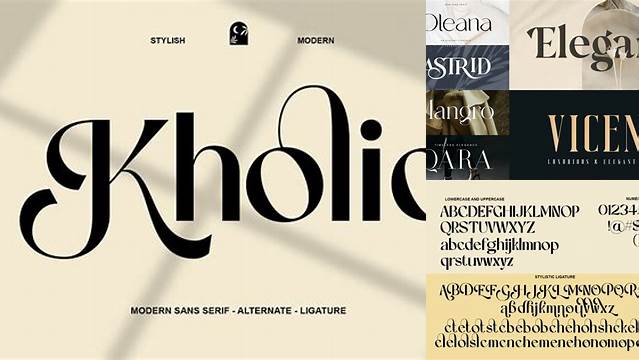
Kholic Font: Free Download For Modern Elegant Logos
Hey guys! Are you looking for that perfect font to give your logo a modern and elegant touch? Look no further! Today, we're diving deep into the Kholic font, a fantastic option for creating stunning logos, branding materials, and more. We'll explore everything from its unique characteristics to where you can snag a free download. Let's get started!
What Makes Kholic Font So Special?
Kholic font stands out due to its blend of modern aesthetics and elegant curves. It's designed to be versatile, making it suitable for a wide range of applications, but it truly shines when used in logos. The clean lines and balanced proportions give it a professional and sophisticated feel, while the subtle details add a touch of personality. Whether you're designing for a tech startup, a high-end fashion brand, or a creative agency, Kholic can help you achieve the desired look. Its readability is also a key factor, ensuring that your logo remains clear and impactful even at smaller sizes. Moreover, the font often includes various weights and styles, offering even more flexibility in your design process. Think of it as the Swiss Army knife of logo fonts – always ready to deliver!
Kholic Font Alternatives: Exploring Similar Styles
Okay, so maybe Kholic font isn't exactly what you're after, or perhaps you want to explore similar options. No problem! There are tons of fonts out there that offer a similar modern and elegant vibe. Fonts like Montserrat, Raleway, and Lato are all excellent alternatives. These fonts share Kholic's clean lines and balanced proportions, making them suitable for a variety of design projects. Another great option is Bebas Neue, known for its tall and narrow sans-serif design. If you're looking for something with a bit more personality, consider Playfair Display or Merriweather, both of which offer a touch of classic elegance. Remember to experiment with different font pairings to find the perfect combination for your logo. Mixing a modern sans-serif with a classic serif can create a visually appealing and memorable design.
Using Kholic Font in Logo Design: Best Practices
When it comes to using Kholic font in logo design, there are a few best practices to keep in mind. First and foremost, keep it simple. A logo should be easily recognizable and memorable, so avoid overcrowding it with too many elements. Use Kholic strategically, focusing on the key words or initials that represent your brand. Consider the overall aesthetic you're trying to achieve. Does your brand want to convey sophistication, innovation, or trustworthiness? Choose a weight and style of Kholic that aligns with that message. Pay attention to kerning and letter spacing to ensure that the font looks balanced and harmonious. Experiment with different color combinations to see what works best. A minimalist black and white logo can be incredibly powerful, while a vibrant color palette can add energy and excitement. Finally, always test your logo on different backgrounds and sizes to ensure that it remains legible and impactful.
Kholic Font and Branding: Creating a Cohesive Identity
Branding is more than just a logo; it's the overall experience that customers have with your company. Kholic font can play a significant role in creating a cohesive brand identity. Use the font consistently across all your marketing materials, from your website and social media profiles to your business cards and brochures. This will help create a sense of familiarity and recognition among your target audience. Consider using different weights and styles of Kholic to create visual hierarchy and add interest to your designs. For example, you could use a bold weight for headlines and a lighter weight for body text. Choose a color palette that complements Kholic's aesthetic and reinforces your brand's personality. Think about the overall tone and style you want to convey. Is your brand playful and approachable, or serious and professional? Use Kholic in a way that reflects those values. Ultimately, the goal is to create a brand identity that is consistent, memorable, and authentic.
Kholic Font Pairing: Complementary Typefaces
Pairing fonts can be tricky, but when done right, it can elevate your design to a whole new level. When using Kholic font for your logo, consider pairing it with a complementary typeface for other design elements, such as taglines or body text. A classic pairing is Kholic with a simple sans-serif font like Open Sans or Roboto. These fonts are clean and neutral, allowing Kholic to take center stage. If you're looking for something with a bit more contrast, try pairing Kholic with a serif font like Garamond or Times New Roman. This can create a sophisticated and elegant look, especially for brands that want to convey a sense of tradition and authority. Experiment with different font sizes and weights to create visual hierarchy and ensure that the text is easy to read. Avoid using too many different fonts in a single design, as this can make it look cluttered and confusing. The key is to find a balance that is both visually appealing and functional.
The Versatility of Kholic Font: Beyond Logos
While Kholic font is amazing for logos, its versatility extends far beyond that. You can use it for a variety of design projects, including website headers, social media graphics, and print materials. Its clean and modern aesthetic makes it suitable for everything from corporate reports to wedding invitations. Consider using Kholic for your website's navigation menu to create a consistent brand experience. Use it in your social media posts to grab attention and communicate your message effectively. In print, Kholic can be used for everything from brochures and flyers to posters and banners. Its readability ensures that your message is clear and impactful, regardless of the medium. Don't be afraid to experiment with different sizes, weights, and colors to see what works best for your project. With a little creativity, Kholic can become your go-to font for all your design needs.
Kholic Font: A Recap and Final Thoughts
Alright guys, let's wrap things up! We've covered a lot of ground in this article, from the unique characteristics of Kholic font to where you can find a free download and how to use it effectively in your design projects. Remember, Kholic is a versatile and elegant font that can help you create stunning logos, branding materials, and more. By following the tips and guidelines outlined in this article, you can harness the power of Kholic to elevate your designs and achieve your creative goals. So go forth and create, and don't be afraid to experiment with different font pairings, color combinations, and design techniques. The possibilities are endless!